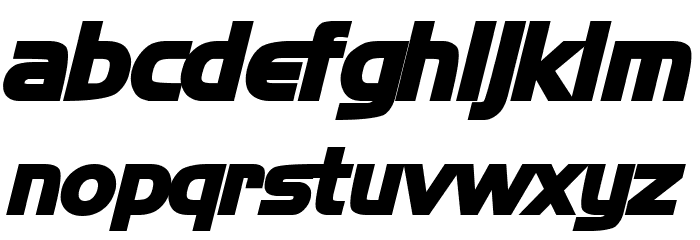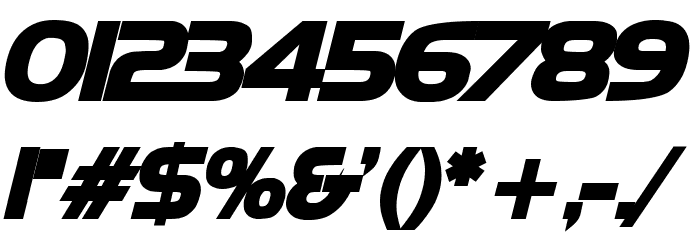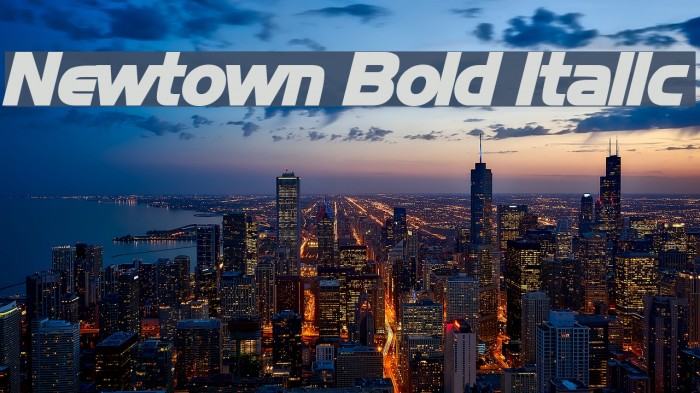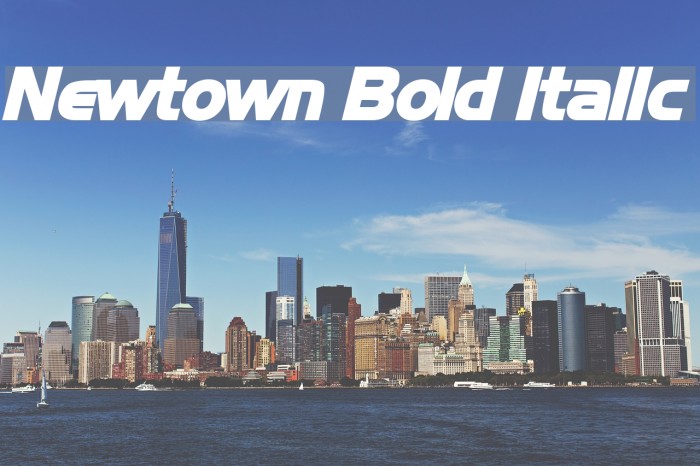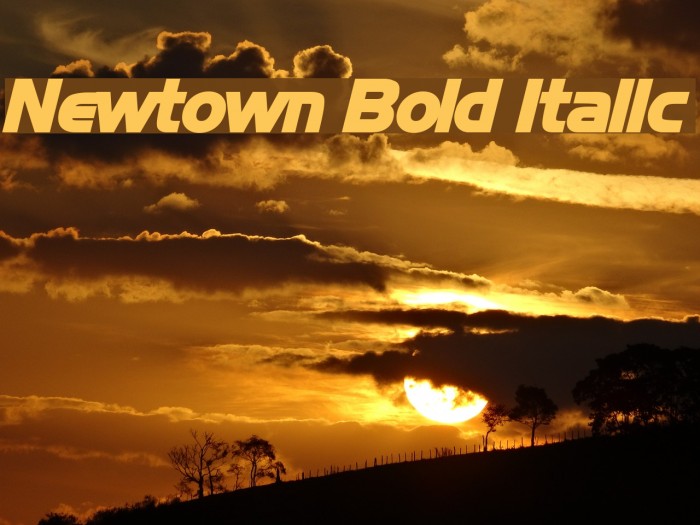
Newtown Bold Italic Font
This font exhibits a bold and italicized style, characterized by its strong, dynamic slant and thick strokes. The letters are designed with a modern flair, featuring sharp angles and a streamlined appearance. The uppercase and lowercase characters maintain a consistent weight, providing a cohesive look across the alphabet. Numbers and special characters are equally bold, ensuring readability and impact. The font's design is both assertive and sleek, making it suitable for projects that require a contemporary and energetic aesthetic.
- Proposed Projects: Ideal for branding, sports team logos, dynamic posters, and modern advertising campaigns.